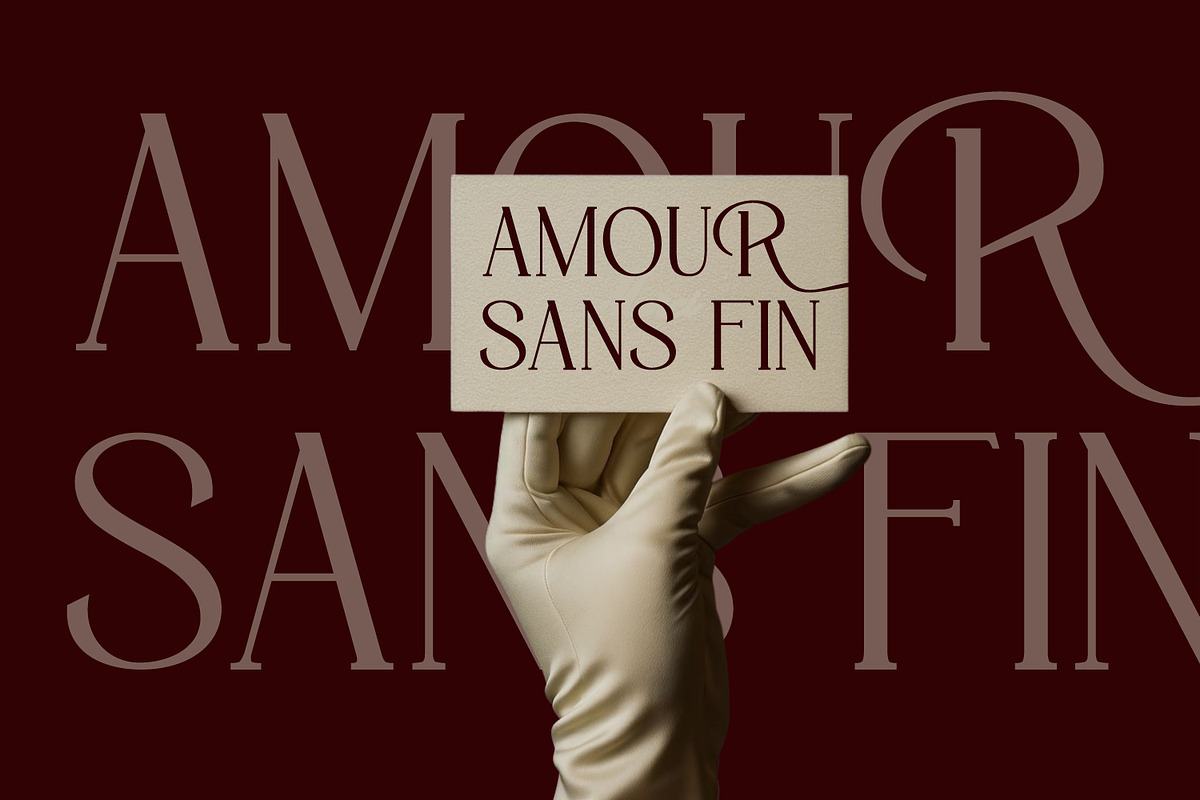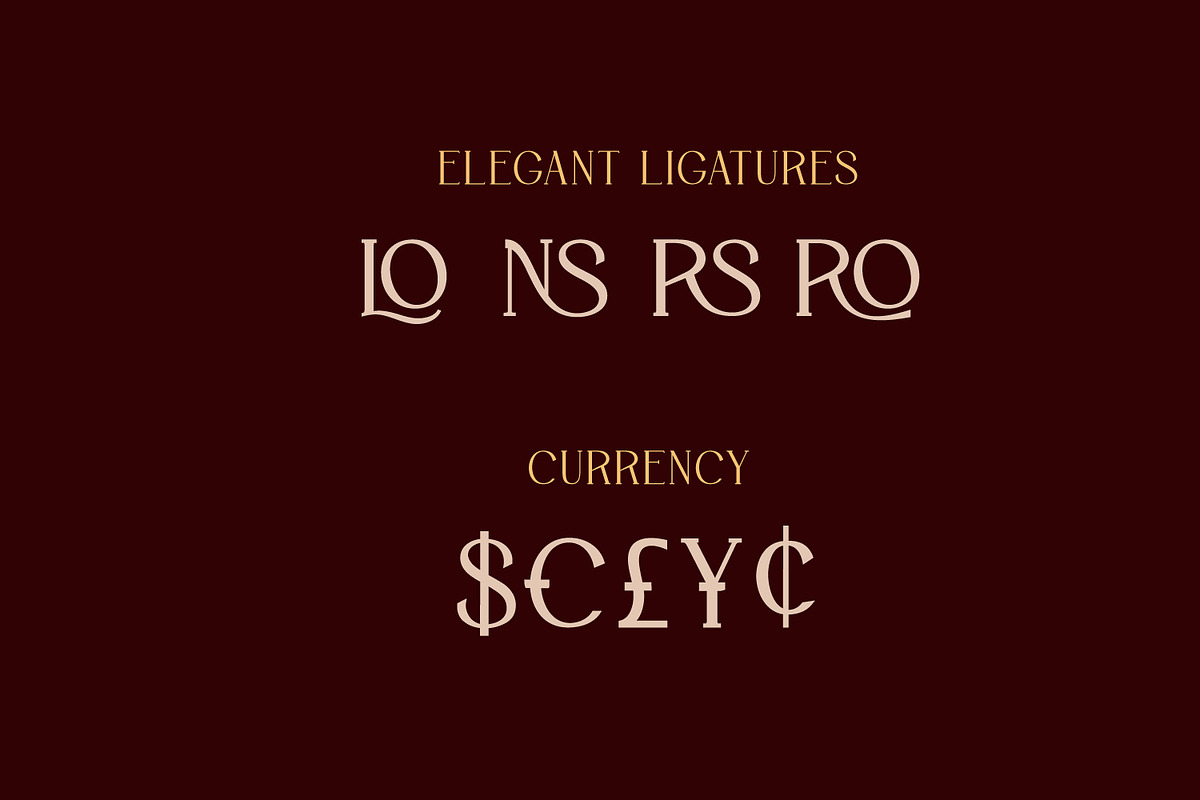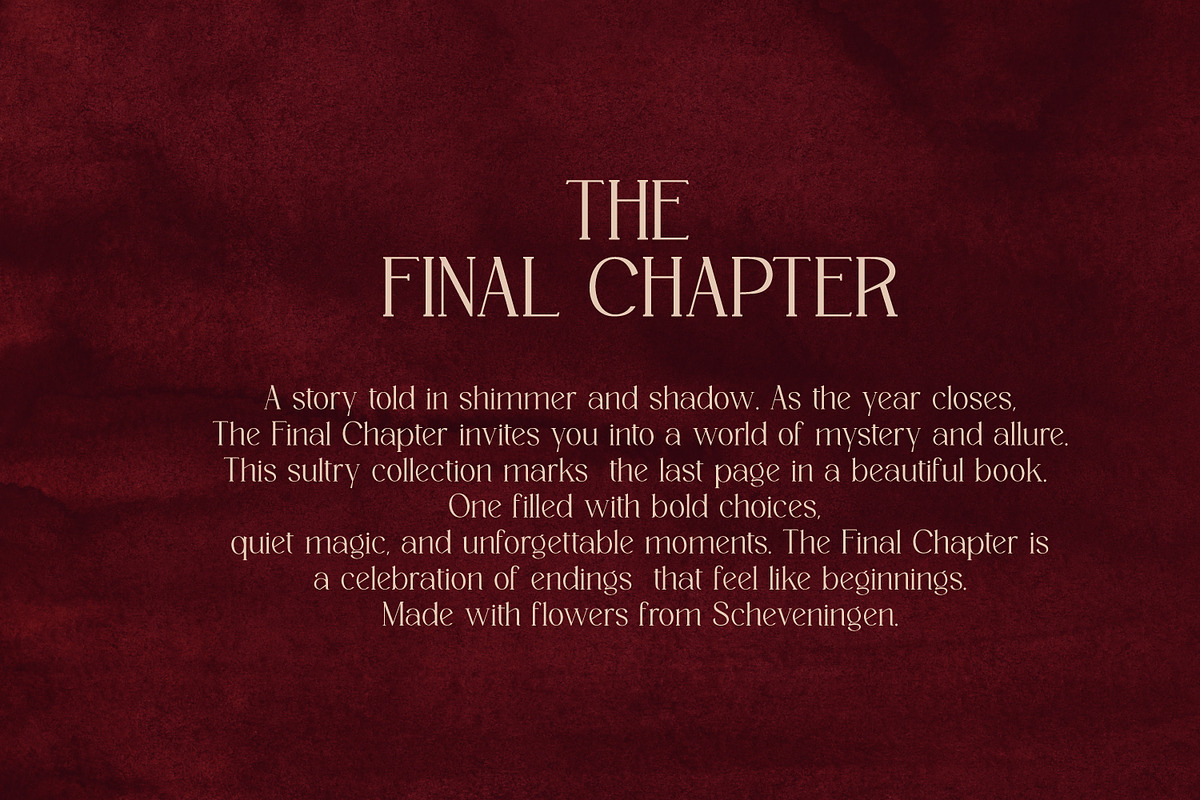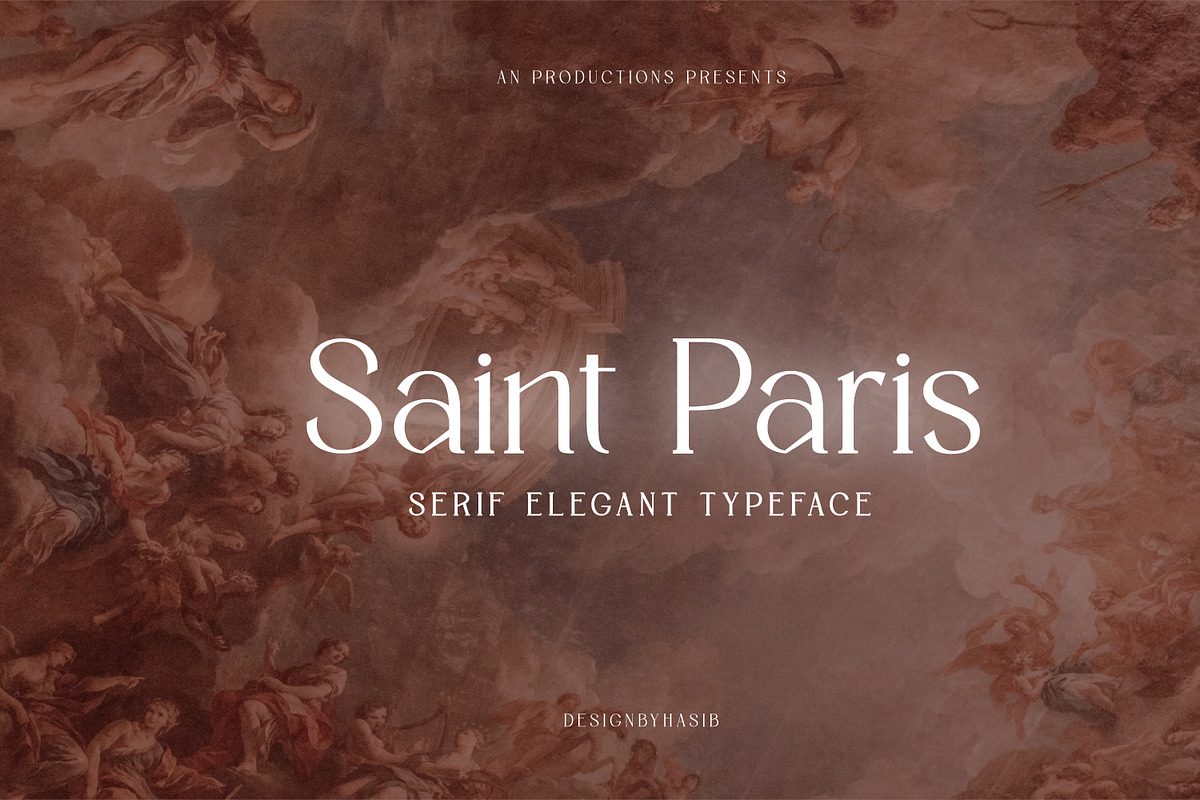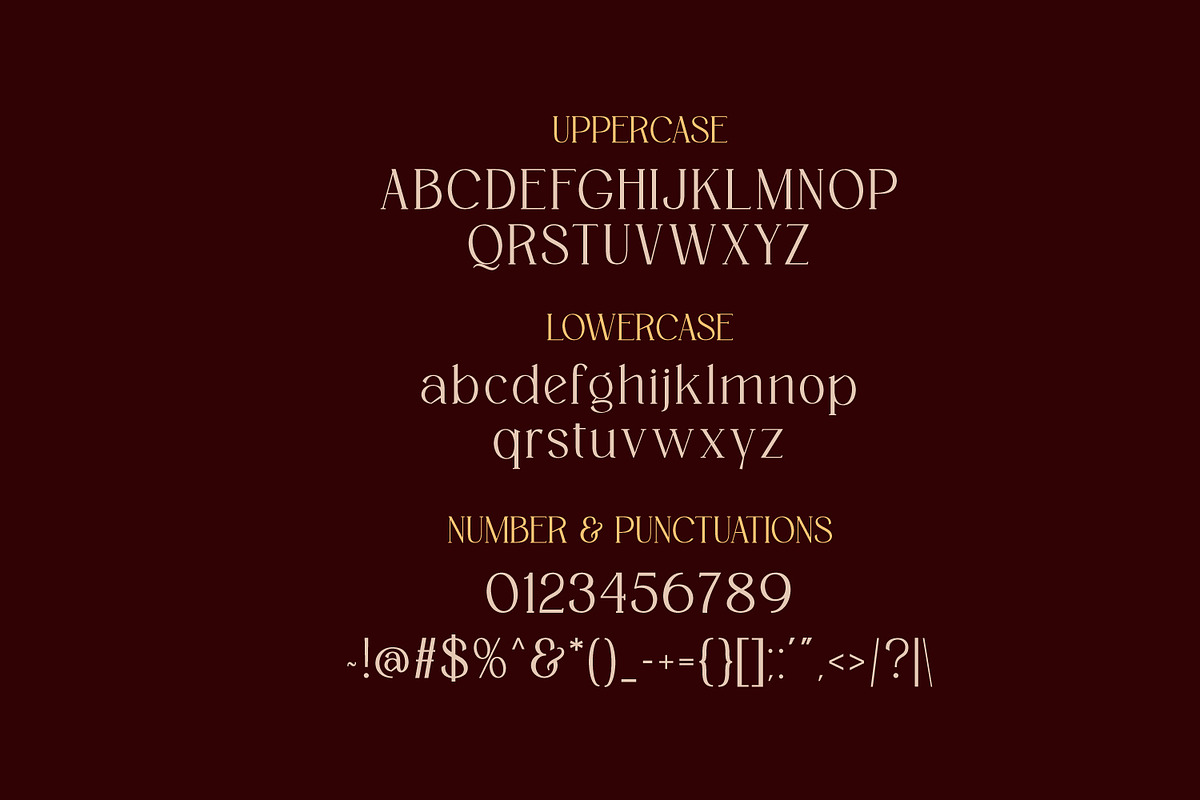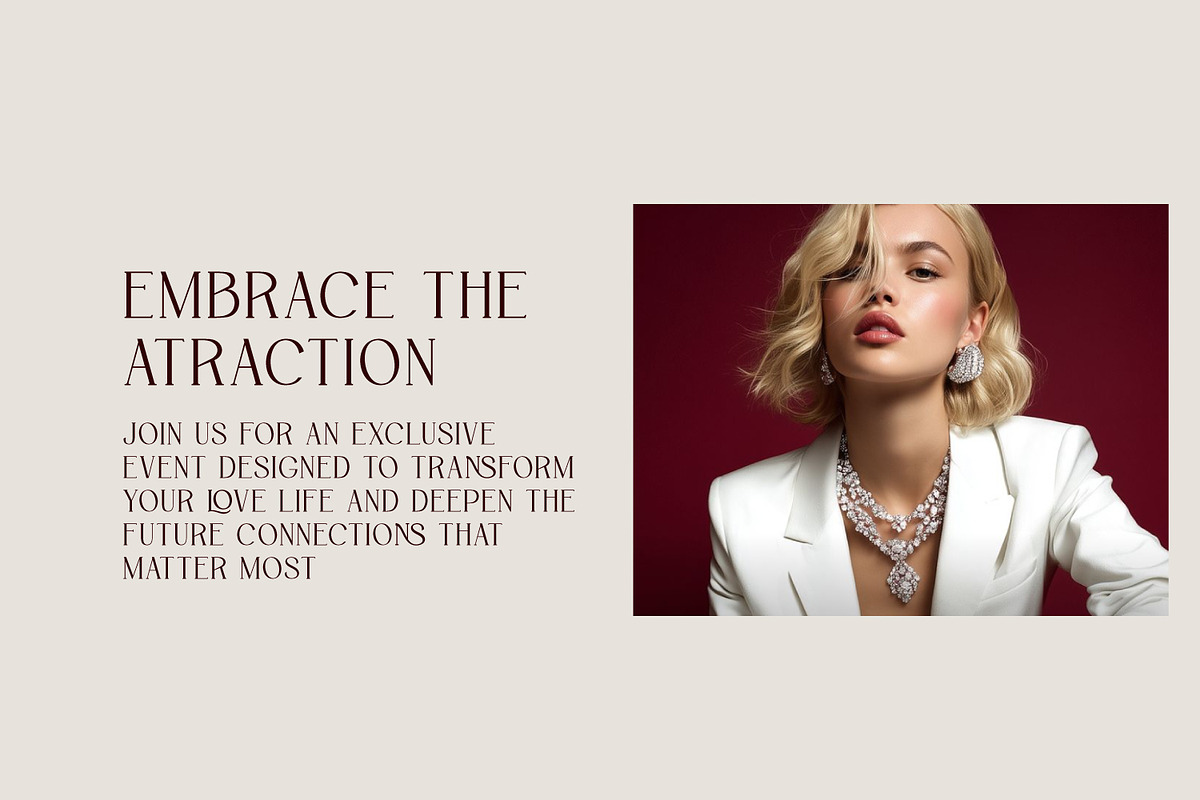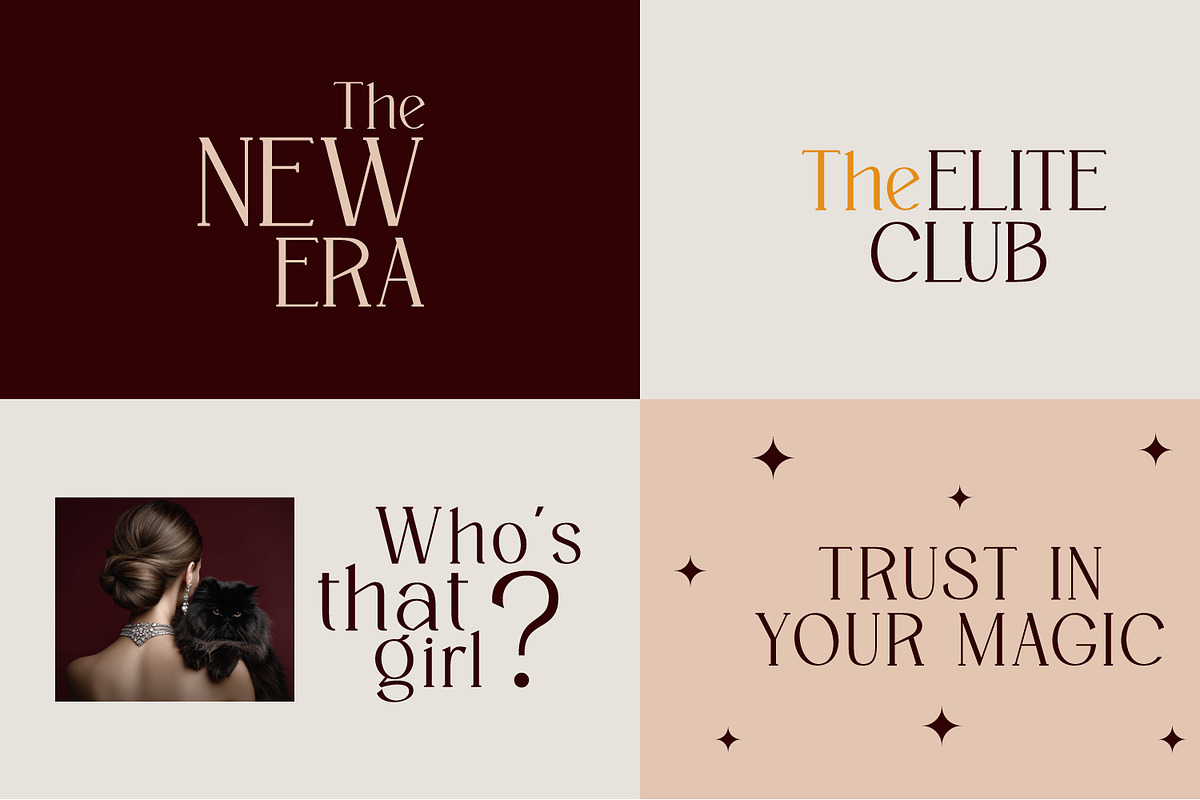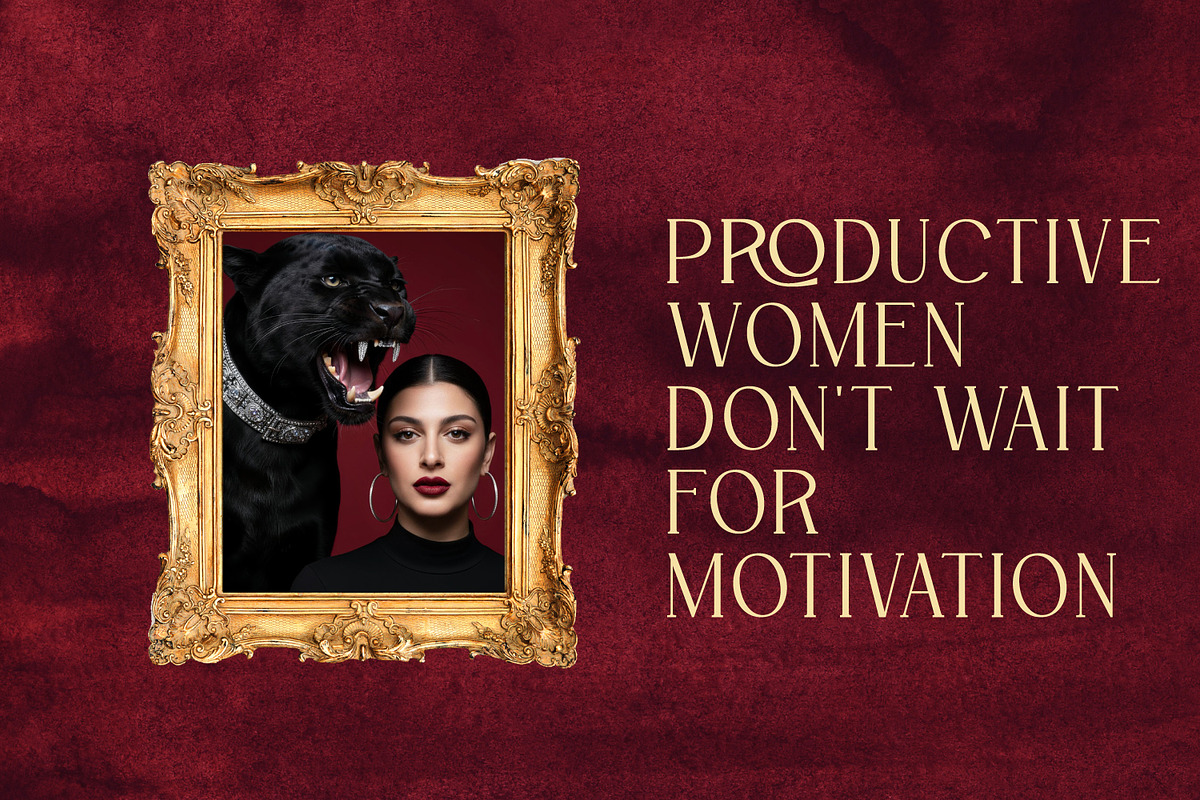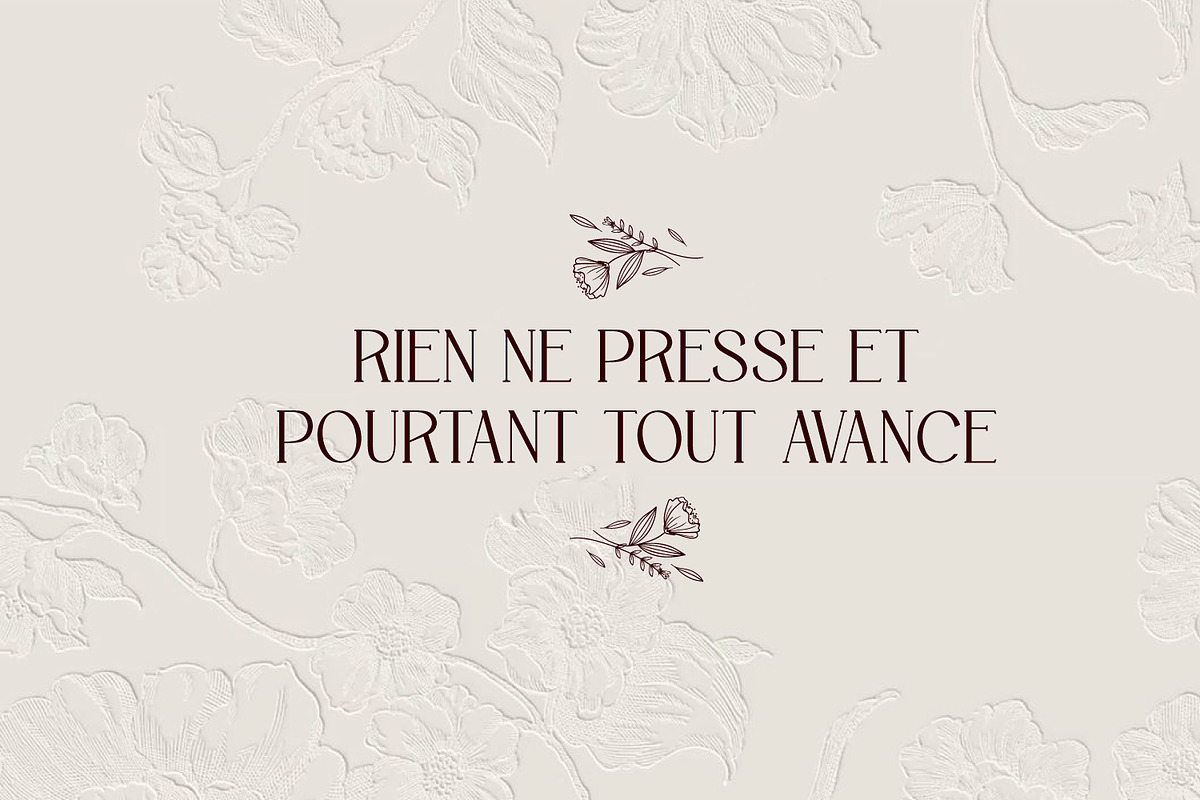
Saint Paris - Elegant Serif Typeface
Saint Paris Serif is a refined and elegant serif typeface designed to bring sophistication, charm, and timeless beauty to your creative projects. Crafted with carefully balanced letterforms and stylish ligatures, this font delivers a luxurious editorial feel while remaining highly readable.
✦ Features
Elegant serif design with a classic Parisian aesthetic Beautiful ligatures and stylistic alternates Clean uppercase and lowercase characters Numerals, punctuation, and multilingual support OTF & TTF formats included Optimized for print and digital use
Saint Paris Serif adds a graceful, upscale touch wherever it’s used — ideal for designers seeking a modern serif with classic elegance.